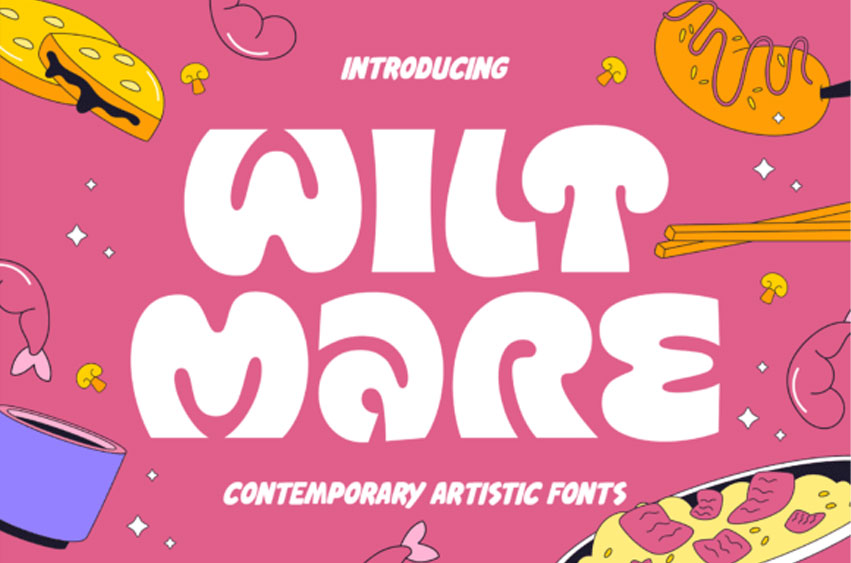
Wiltmare Font
Wiltmare Font: Bring playful energy to your designs with Wiltmare, a bold font inspired by classic cartoons and pop art. Its standout feature: a mushroom-inspired ‘T’ that adds quirky charm.
Food & beverage branding
Event posters & retro designs
Kids’ books, toys & social media graphics
Merchandise & more
Make your projects fun, fresh, and unforgettable.